36 Super summer fonts that really ‘heat up’
This magic typography, conveying sunlight, a beachy vibe, and endless possibilities. There is nothing sweeter like this.
Summer fonts are more than just pretty letters on a screen – they are visual holiday postcards that transport viewers straight to azure beaches, barbecue parties on terraces, and those golden hour moments everyone craves.
If you are just in a good mood, these fonts can also help you, because summer is really hot and so beautiful. All these fonts were created by professionals and the best quality was spared, whether it is free or premium fonts.
Summer Together
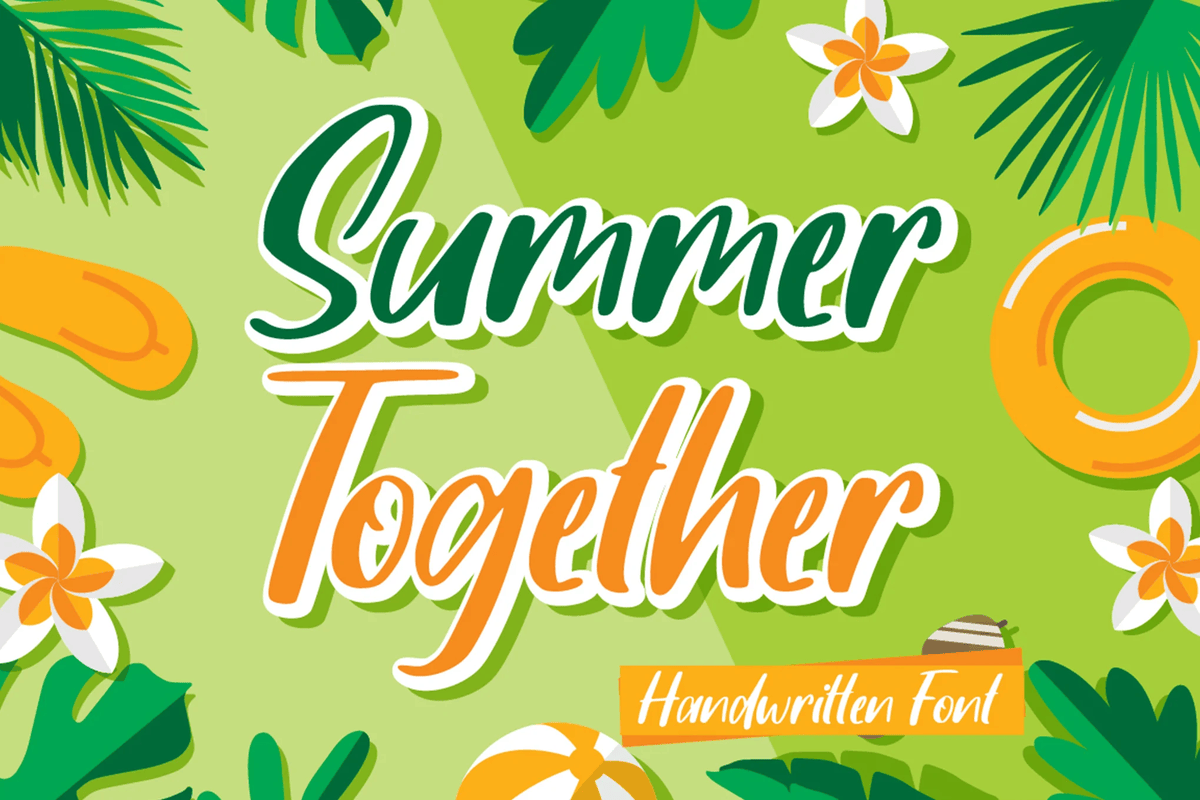
It is a sweet and colorful handwritten font. Add this font to your most creative summer related ideas and notice how it makes them alive. Comes in uppercase and lowercase characters, numbers, punctuation, ligatures, swashes, alternates + multilingual support.
Summer Blaze
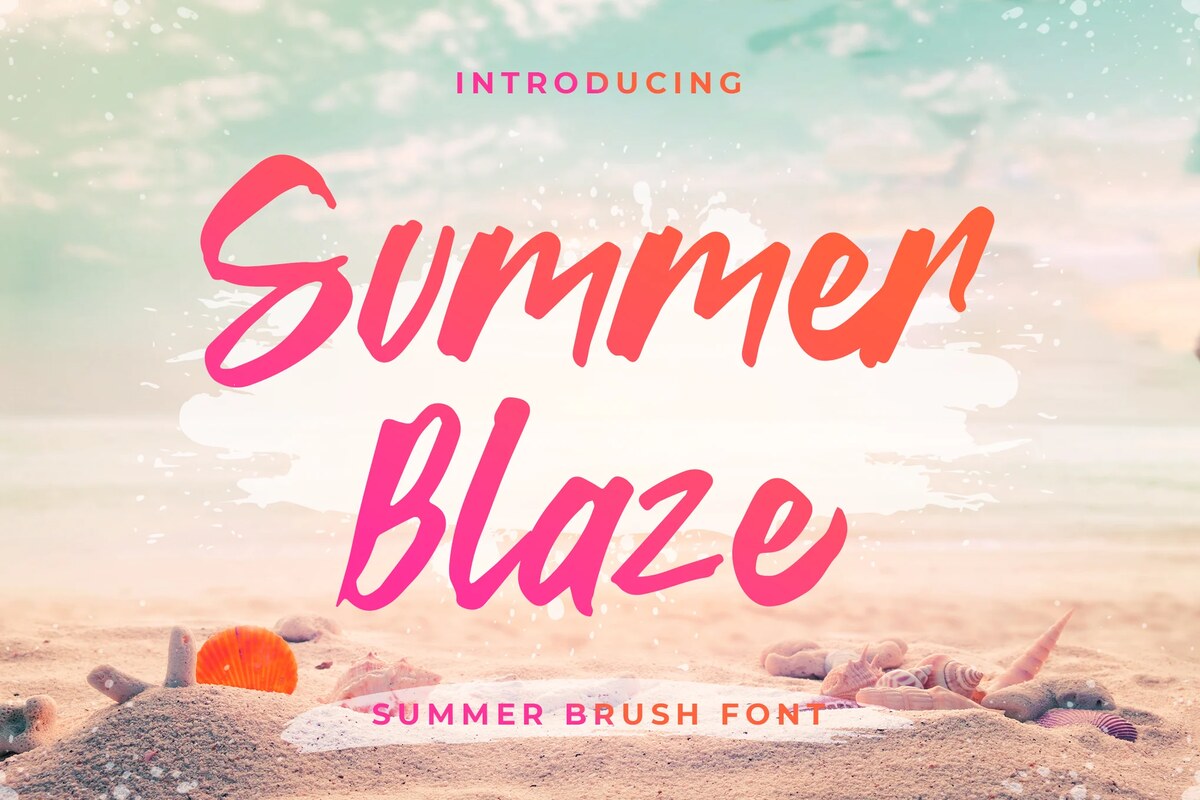
It is a beachy and dreamy script that radiates summer and positivity. Use it to add a relaxed vibe to any design project. Comes in uppercase and lowercase characters, numbers, symbols, punctuation, ligatures, alternates + multilingual support.
Summer Fruits
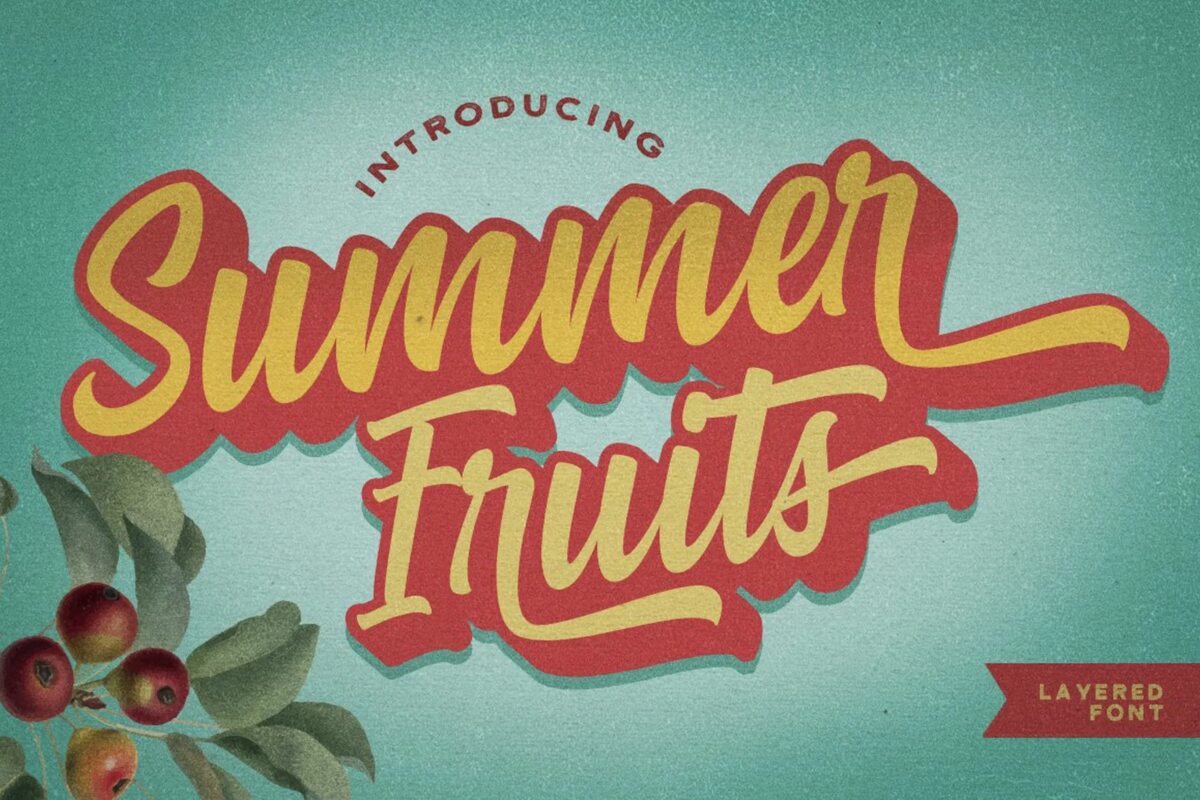
It is a bold script who comes with extrude effect. Inspired by retro typography designs style in 70’s. Ideal for t-short designs, posters, flyers, booklets, covers, and more. Comes in stylistic alternates, swashes, ligatures, contextual and stylistic set + multilingual support.
Sunroof & Summer
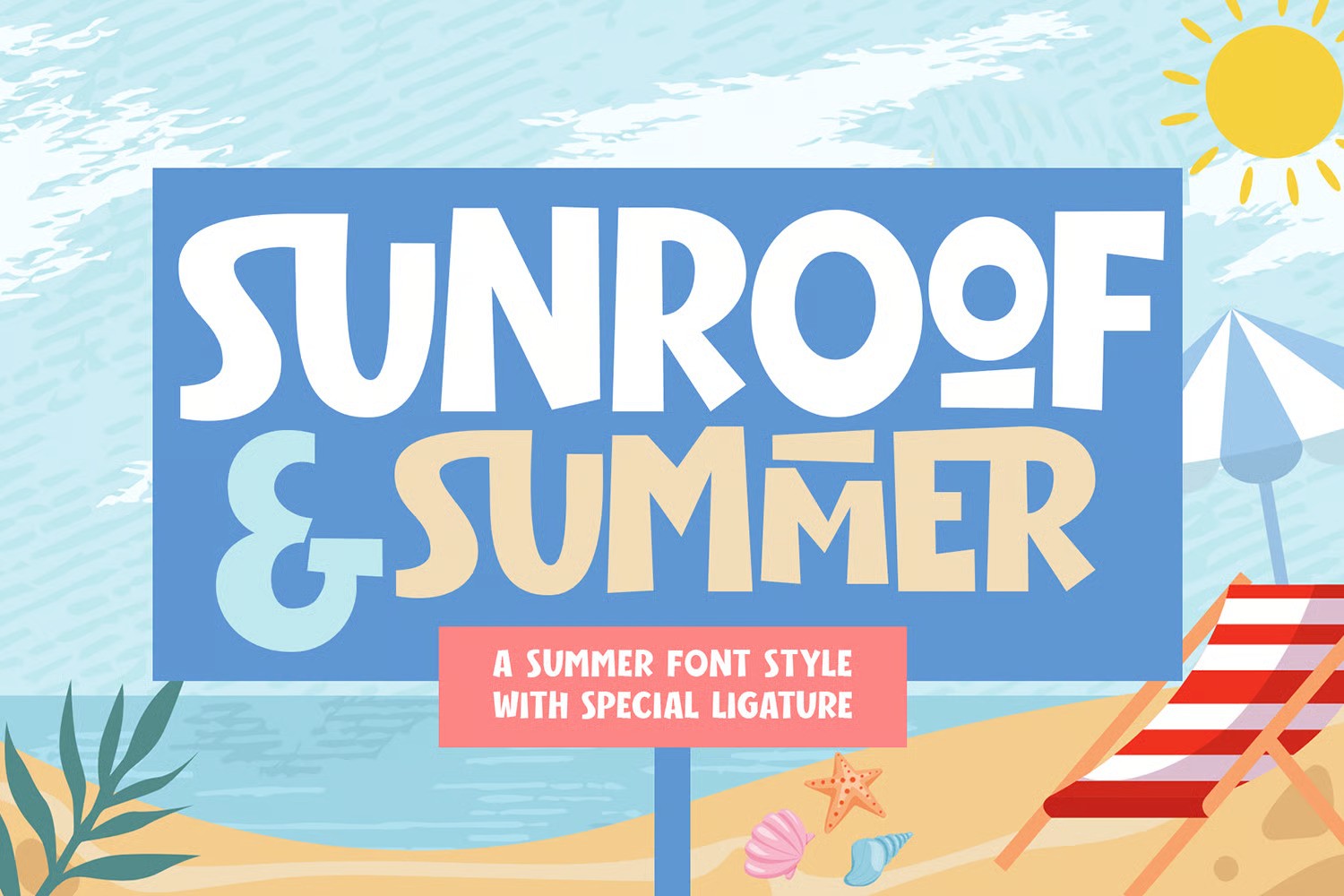
A kid’s font with a simple style but has a modern impression to your design projects. This font perfect for anything design about summer theme. Comes in uppercase and lowercase characters, numbers, symbols, punctuation, ligatures, alternates + multilingual support.
Summer Wednesday
It is a handwritten display typeface inspired from the beach vibes. This font is perfect for social media posts, advertisements, product packaging, product designs, labels, and any project that you work on. Comes in uppercase and lowercase letters, numbers, symbols, punctuation, ligatures, alternates + accented characters.
Summer Sunshine
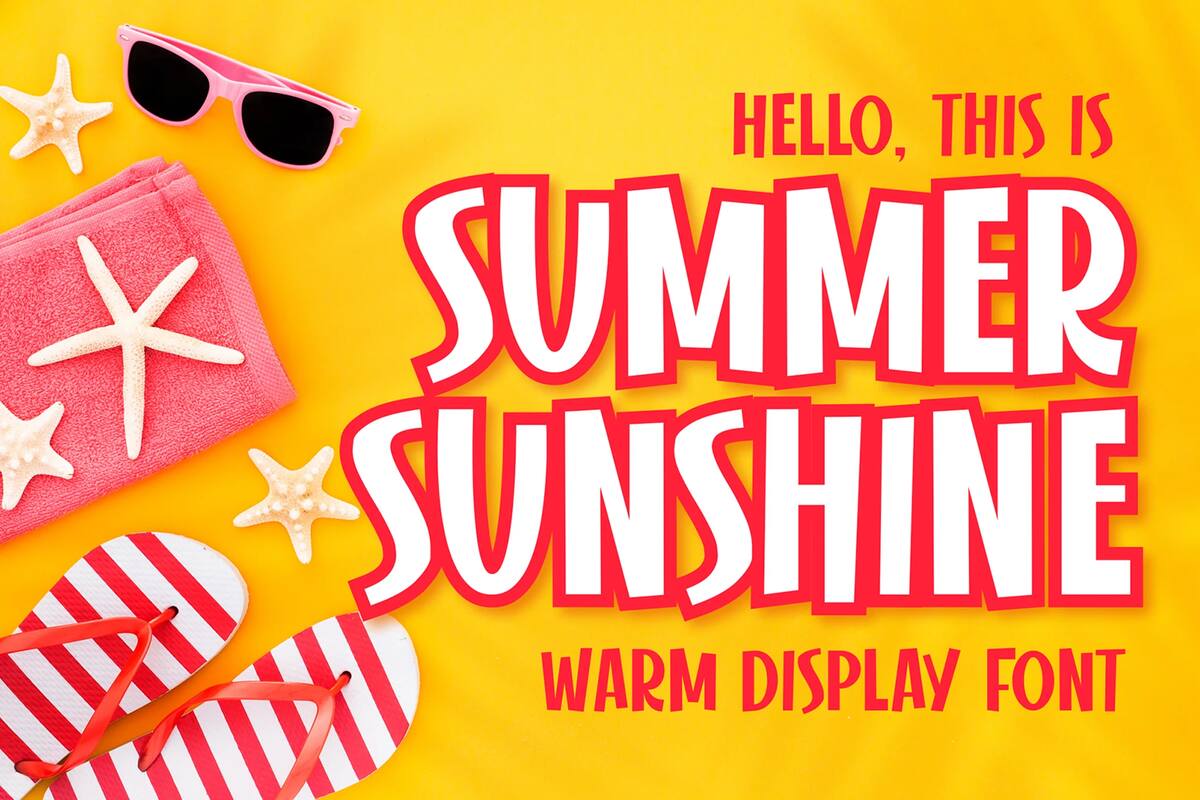
Made with love and joy, inspired by the warmth of summer. Comic look, so it will make your design more beautiful, cute, fun, and colorful. Comes in uppercase and lowercase characters, numbers, punctuation, accents + multilingual support.
Summer Notes
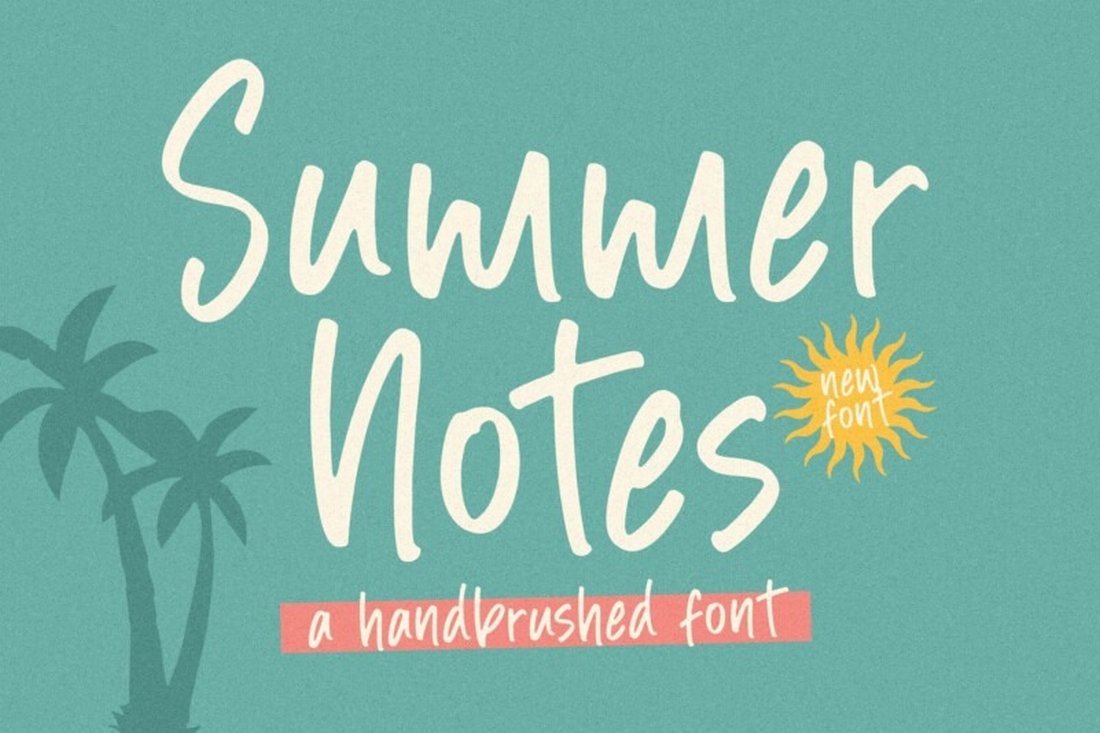
A hand brushed typeface that’s perfect for adding a personal touch to your design projects. Ideal for festive event designs, t-shirts, covers, posters, flyers, and more.
Summer Peach
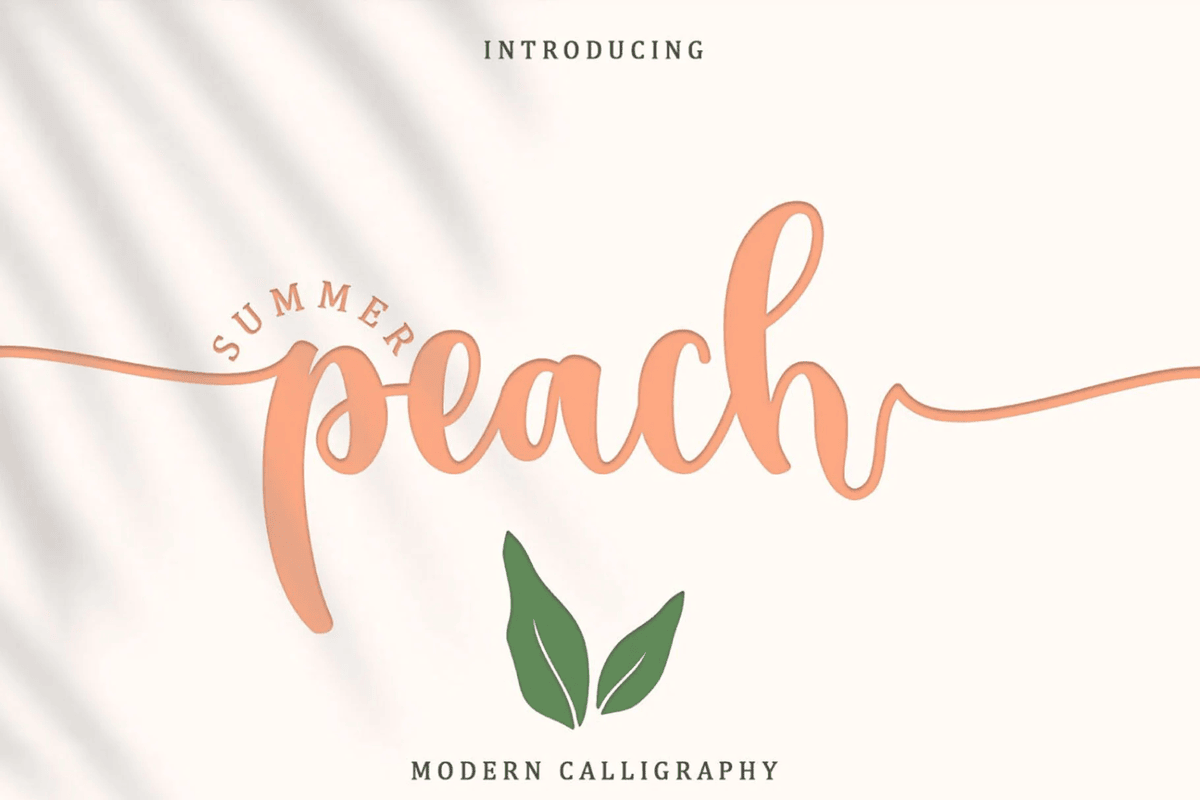
A dazzling script font neatly crafted and highly detailed. Whatever the topic, this font will be a wonderful asset to your font library. Its PUA encoded which means you can access all glyphs and swashes with ease.
Summer Miracle
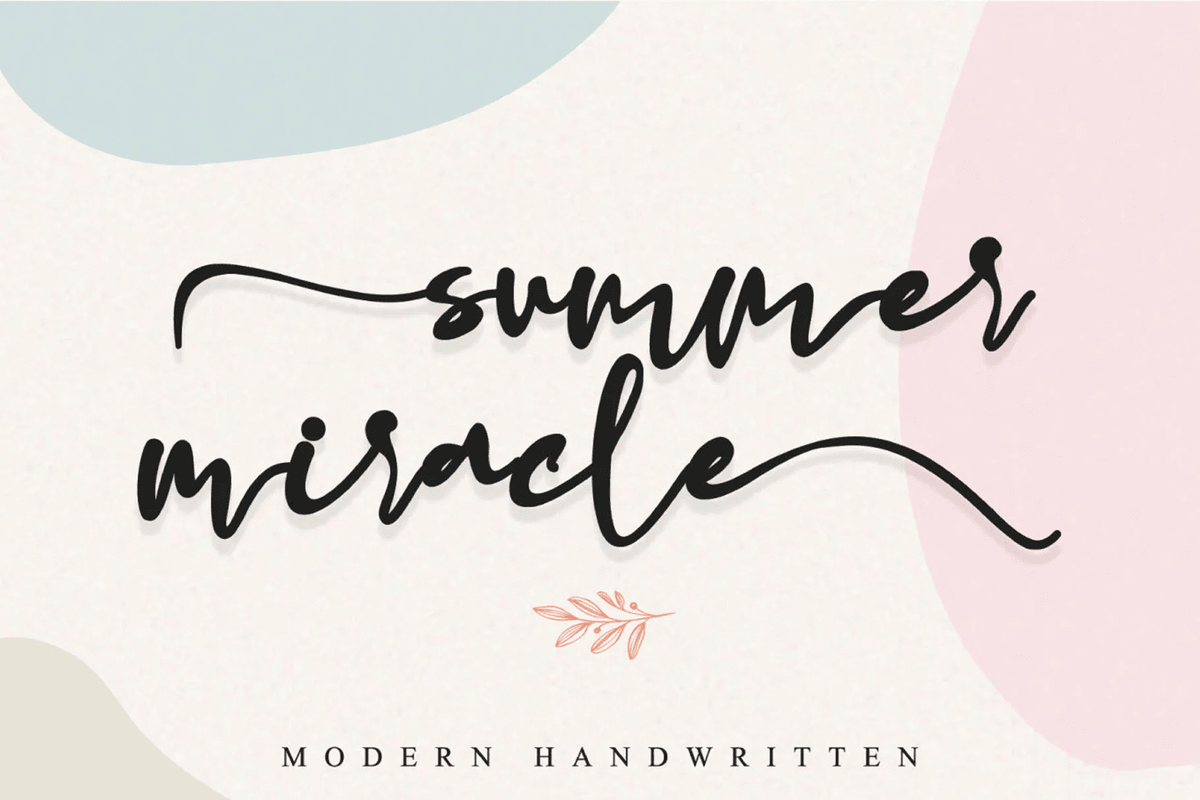
An incredibly modern and sweet handwritten font that will turn any design idea into a true standout. Its a PUA encoded which means you can access all of the amazing glyphs and swashes with ease.
Summer
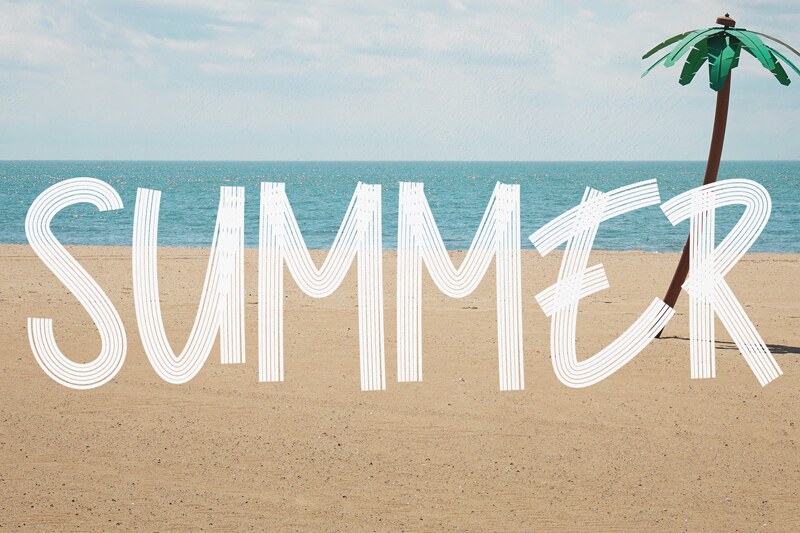
A free marker brushed font for all your summer design needs. Suits well for titles, headlines, posters, flyers, covers, and more. Comes in all caps letters, numeral and punctuation.
Summer Vibes
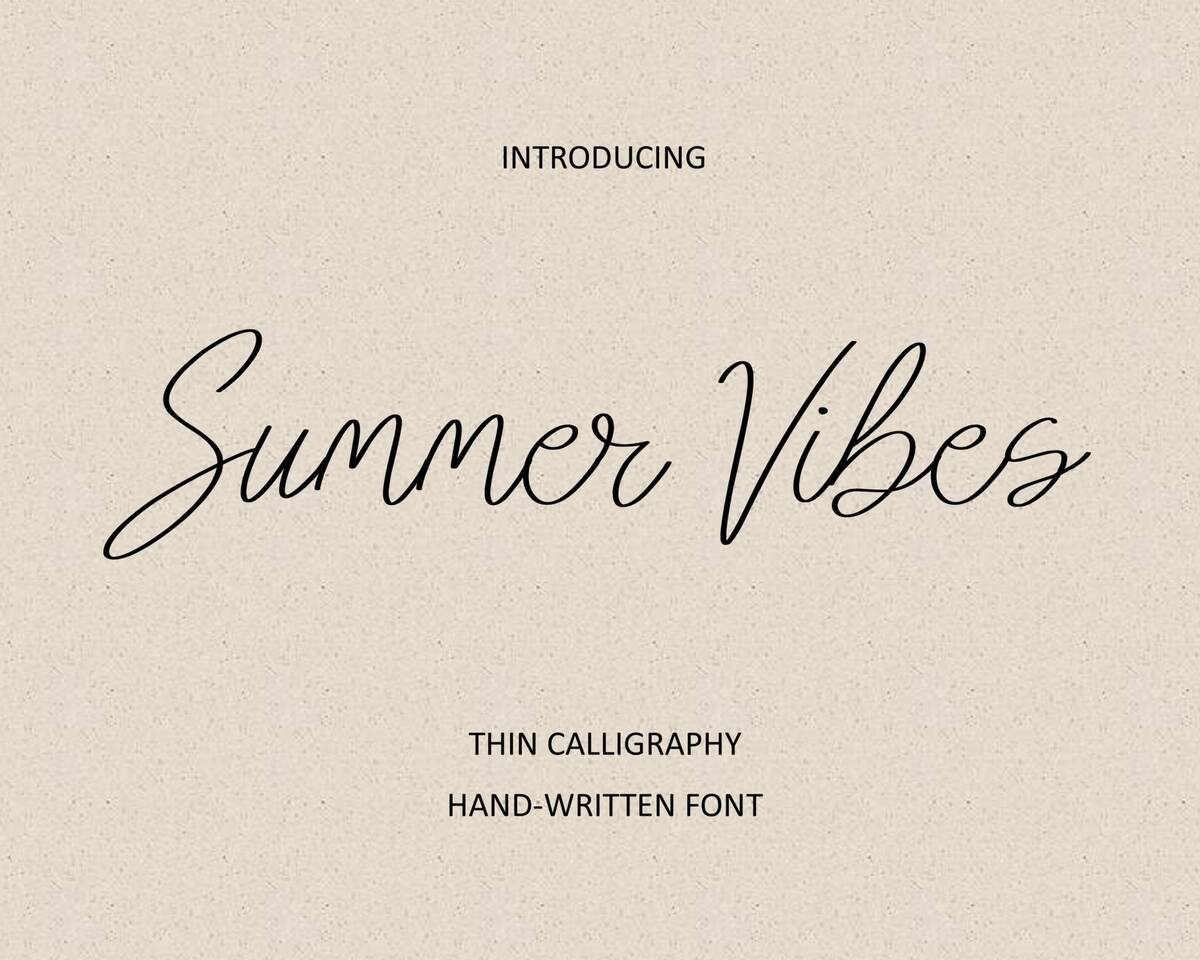
A free cursive summer font. Feel free to use it in your designs such as lettering, invitations, postcards, covers, and more.
Hello Summer
A free retro style summer font going good for your holiday designs as well to your postcards, creative t-shirts, invitations, posters, and more.
Summer Matters
A fun display font with a calligraphy style, so beautiful on invitation like greeting cards, branding materials, business cards, quotes, posters, and more. Tons for glyphs, alternates and ligatures, PUA encoded + multilingual support.
AL – Summer Lightning
This font is perfect for product packaging, branding projects, magazines, social media, wedding, or just used to express words above the background. Also included a multilingual support.
Summer Wave
A stunning handwritten script font featuring smooth strokes, elegant swashes, and unique alternates, perfect for adding a vintage yet modern touch to your designs. Comes in OpenType features, PUA encoded + multilingual support.
Olivia Bloom
A summer font in monoline style, combine with alternates to make spectacular designs. Perfect for summer event, summer party, branding, logos, invitations, quotes, apparel designs, product packaging, and more. Comes in multilingual support.
Use them for various publications, posters, covers, invitations, postcards, social media, logos, branding, flyers, booklets, and in may other designs.
However, remember that the best summer font isn’t necessarily the most decorative or tropical. It’s the font that best conveys the specific summer mood you’re trying to create while meeting the practical needs of your design project.
Life is too short for boring typography. Go ahead and create the coolest designs using resources, these are fonts that are ready to help you in any situation, just act.